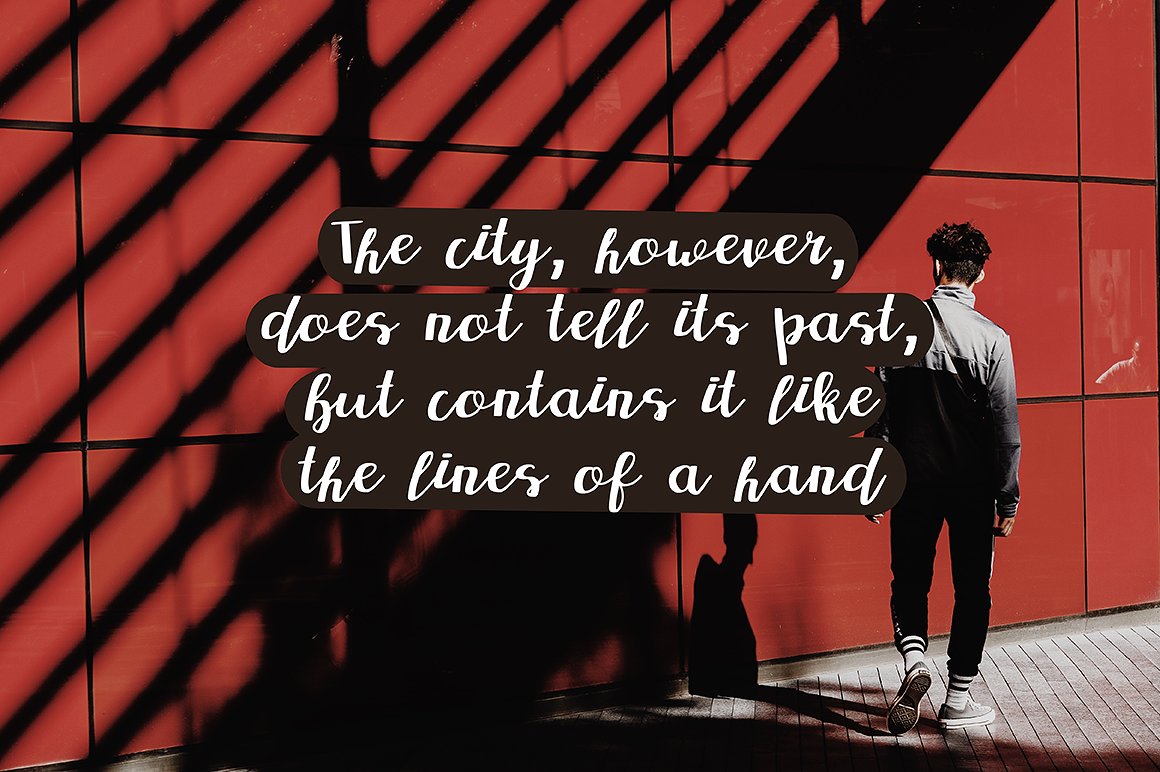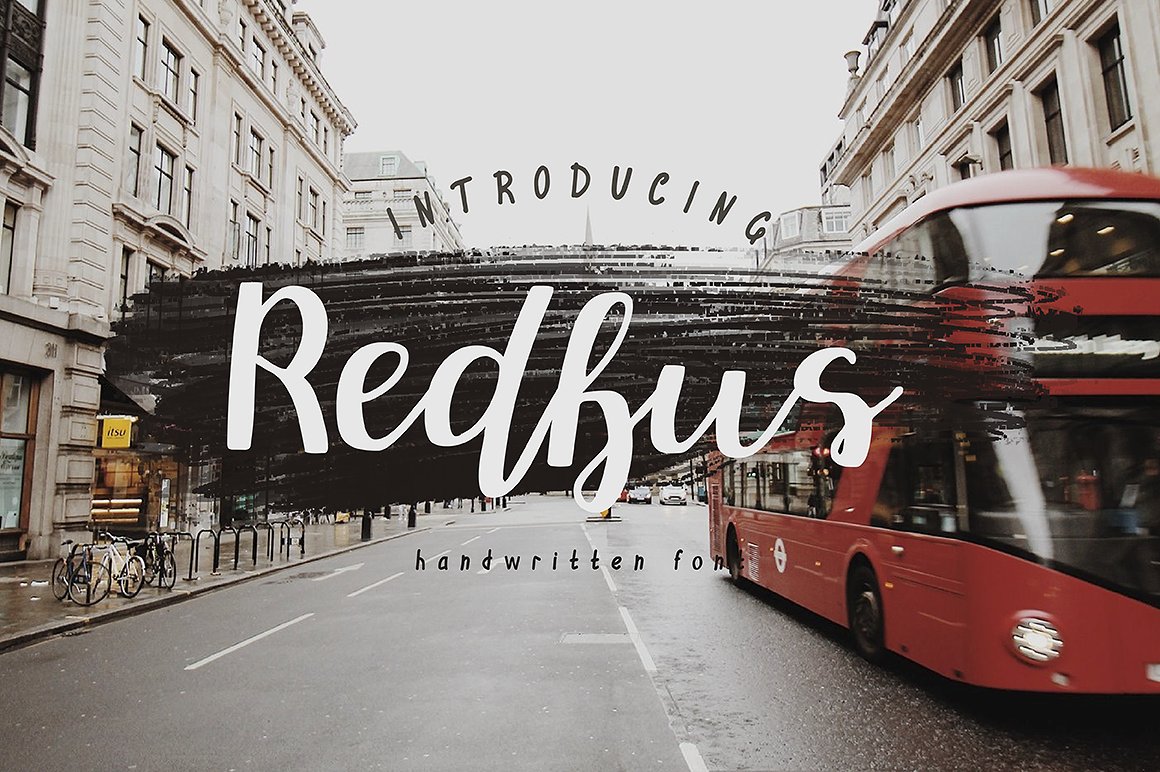
Redbus Handwritten
Redbus Handwritten Font
I’m glad to introduce you my new font Redbus – a hand-made brush font, wich simulates natural handwriting. Suitable and applicable to create typography design, christmas card, branding, logos, product packaging, invitation, t-shirt, label poster etc.
I’m glad to introduce you my new font Redbus.
Redbus will help you to decorate any of your projects in a nice attractive style. It’s a perfect choice for your design needs!